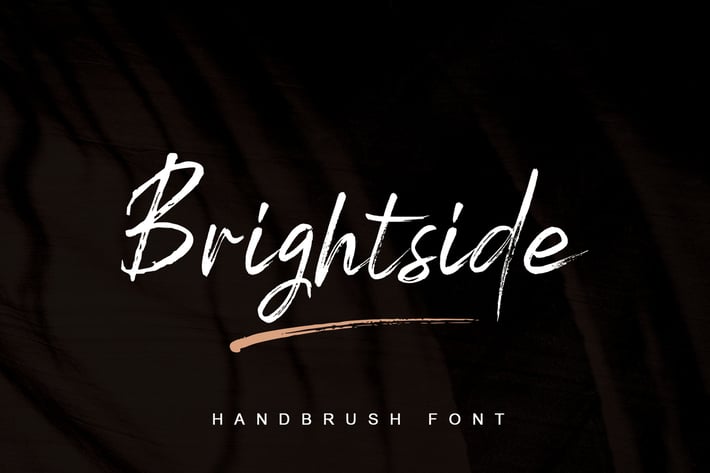
Brightside Brush Font
Brightside is a highly original and unique handwritten font with a bold and authentic feel. Fall in love with its contemporary charm.